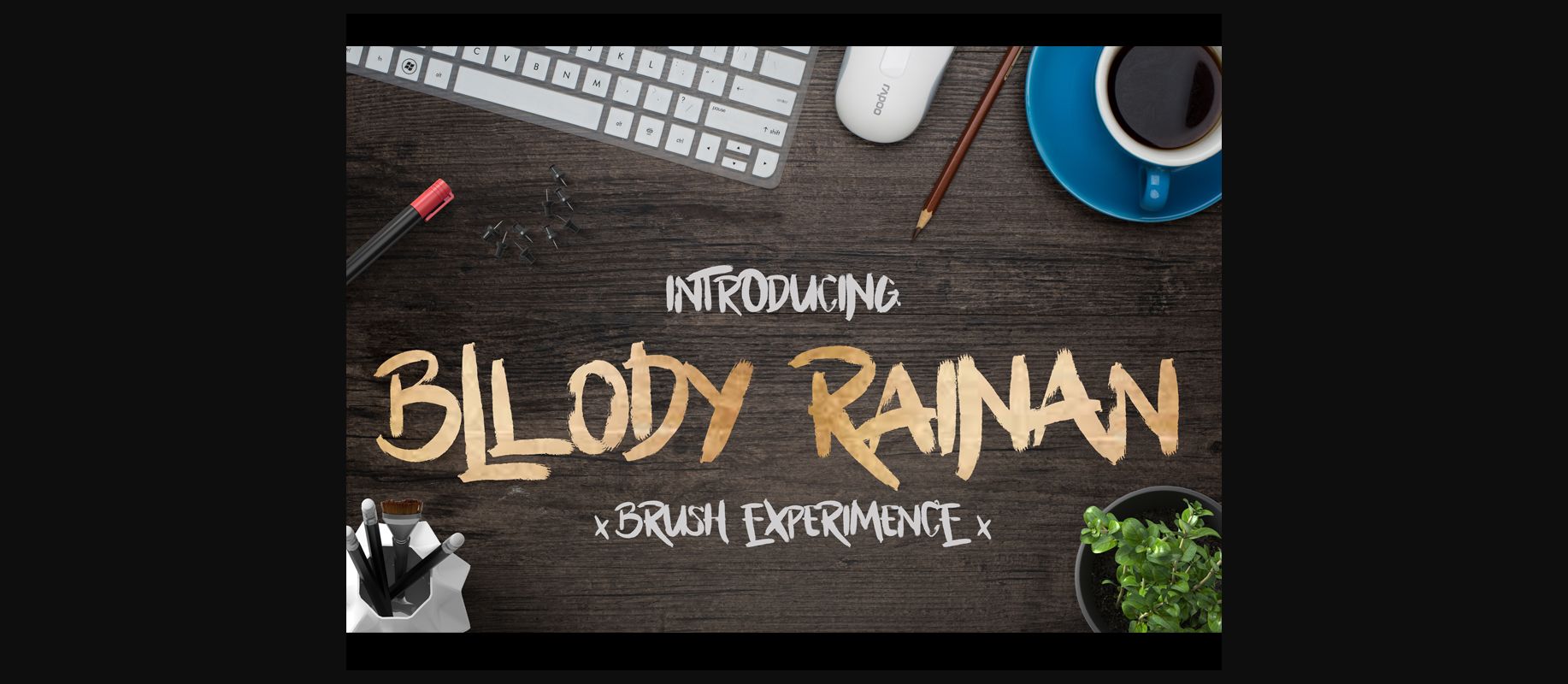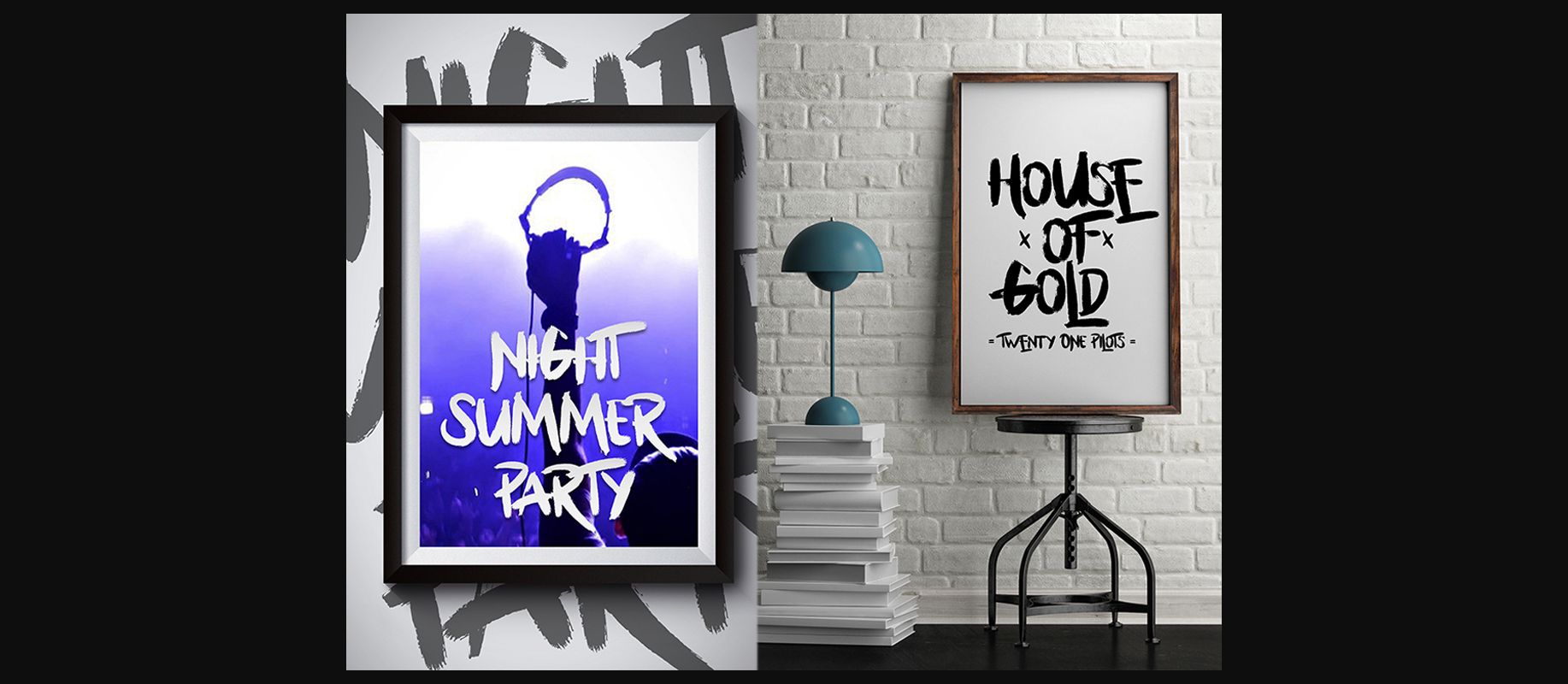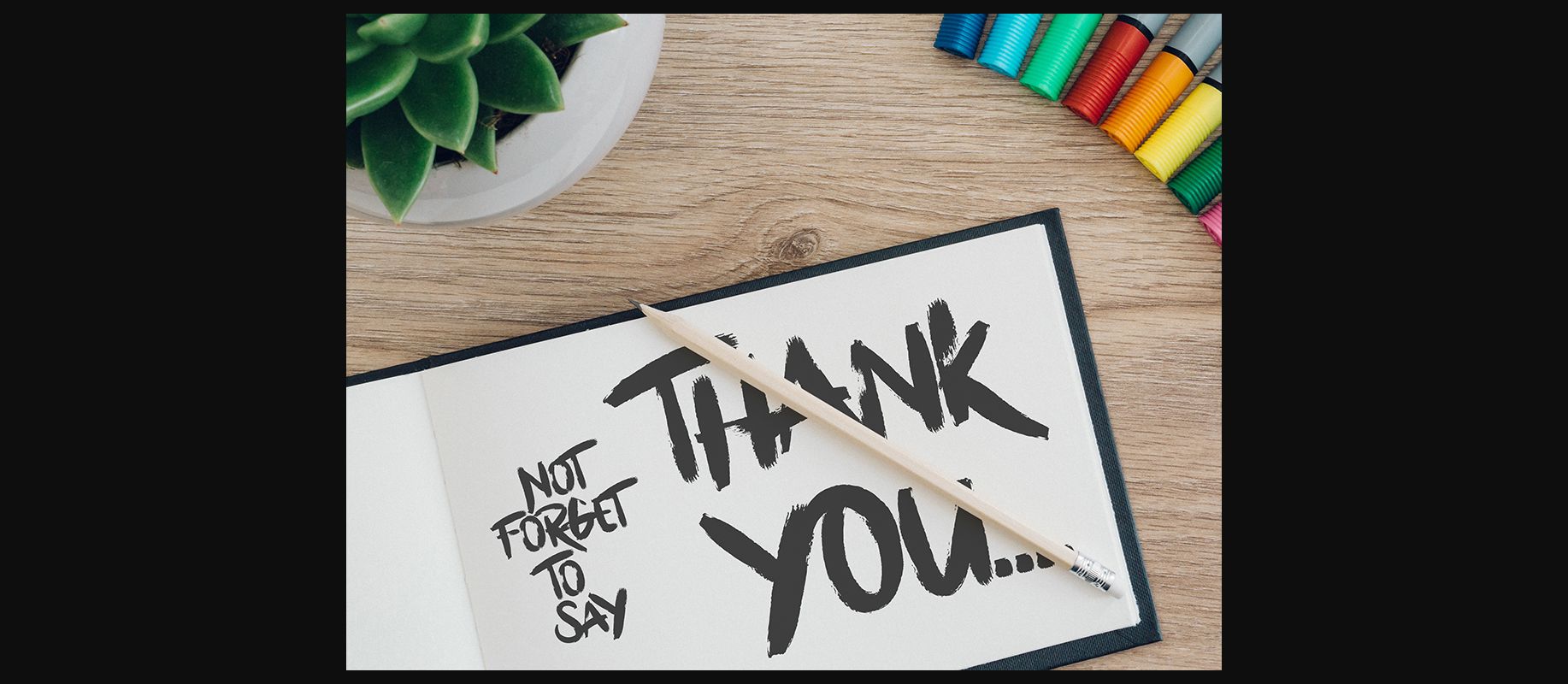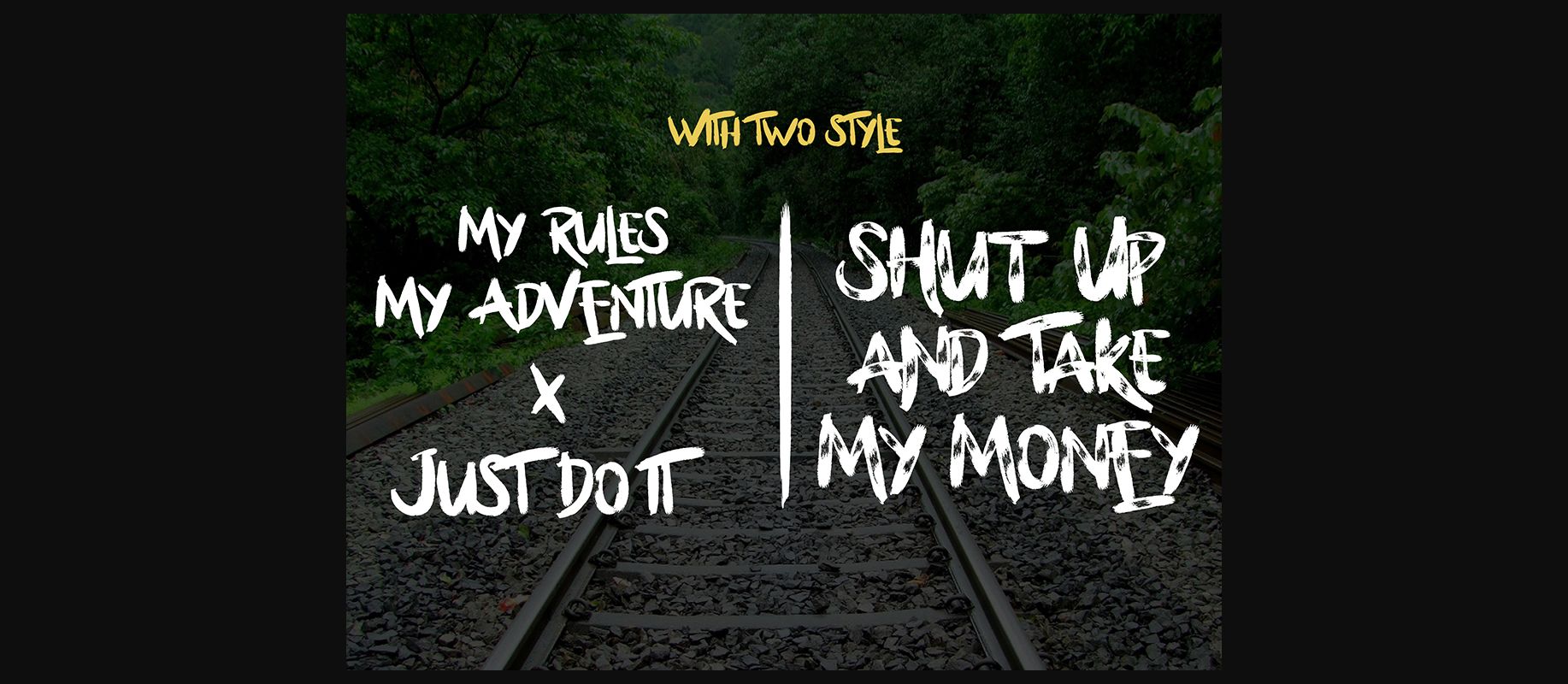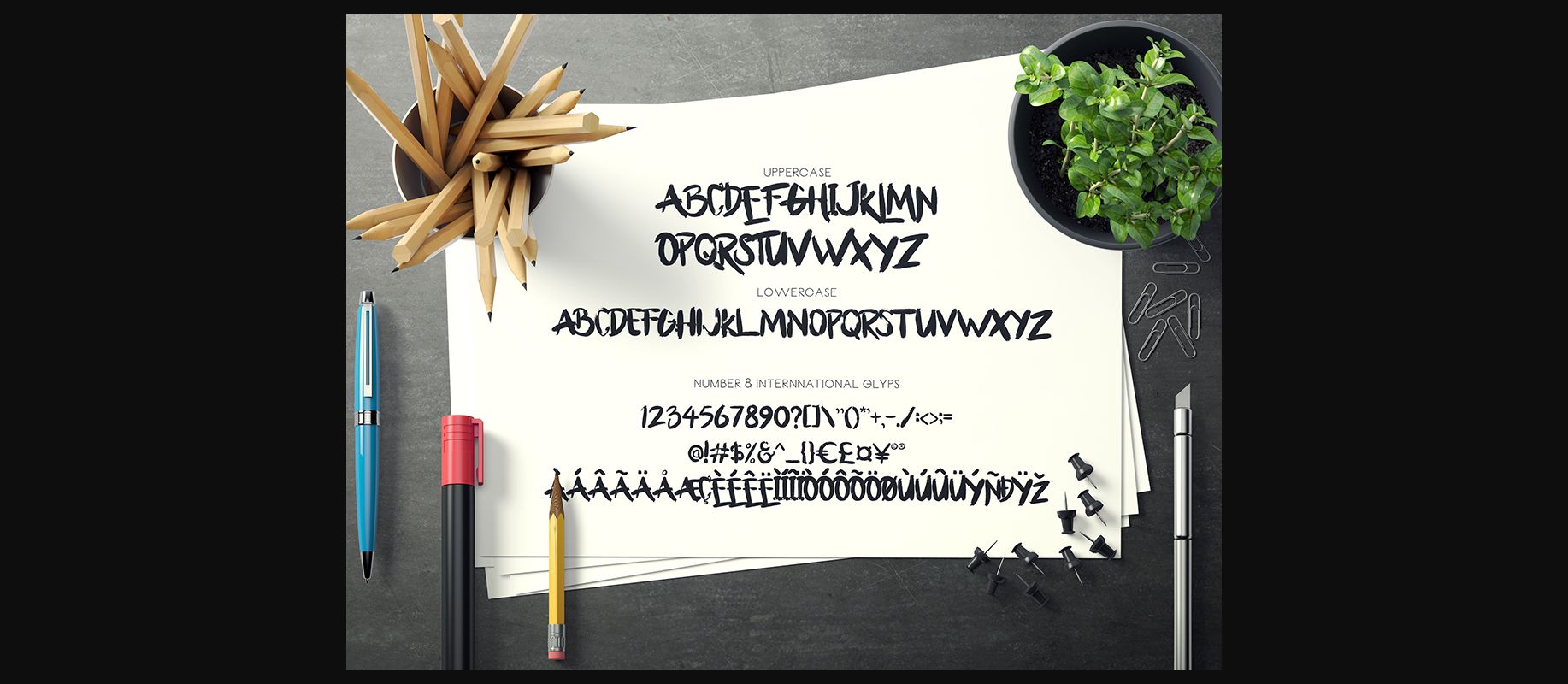
Bllody Rainan Font
About Bllody Rainan Font
Bllody Rainan is a rough brush font with 2 unique styles (both styles also come as italics).
The font is based on splashed waterpaint and will work great for creating playful fun branding materials.